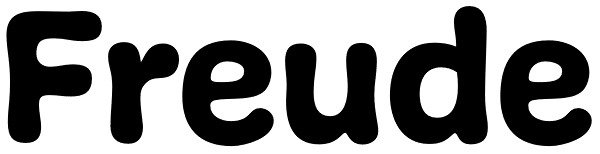
Freude
Freude was originally developed for the album artwork of the Austrian musician Tombeck. The word Freude means “joy” in German. Supplemented by the addition of lowercase letters and refined by various OpenType features, the Freude typeface is...